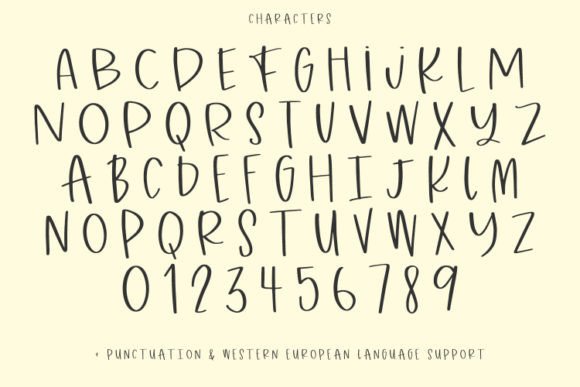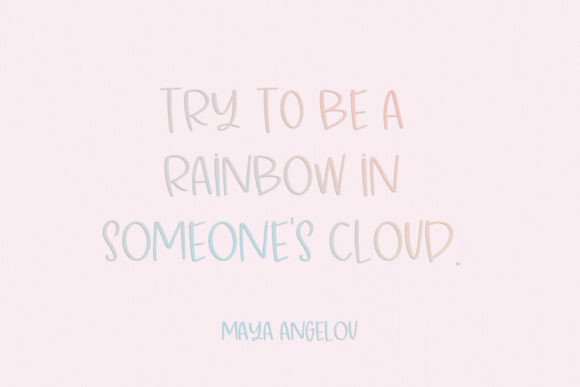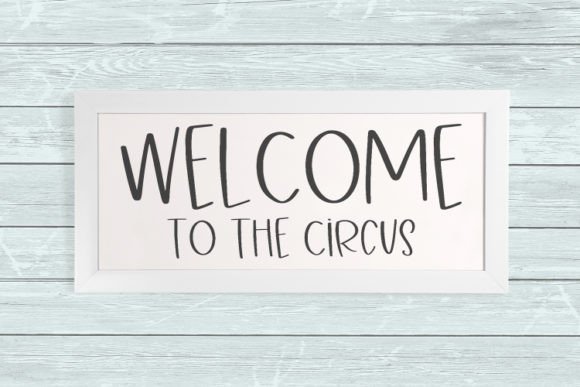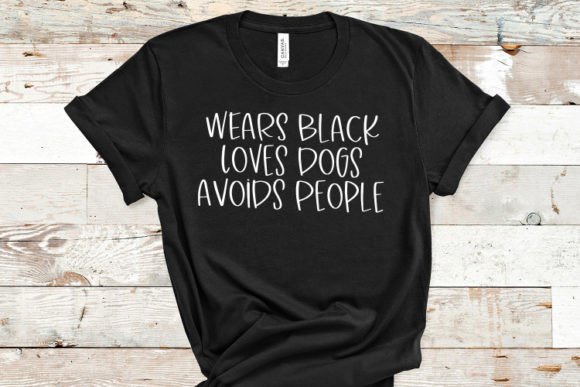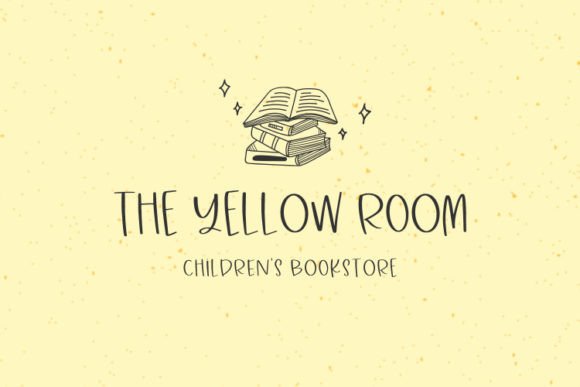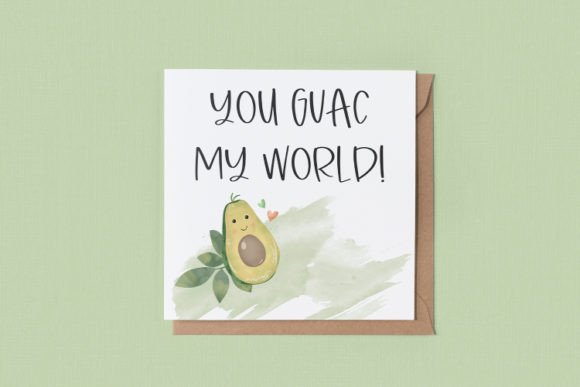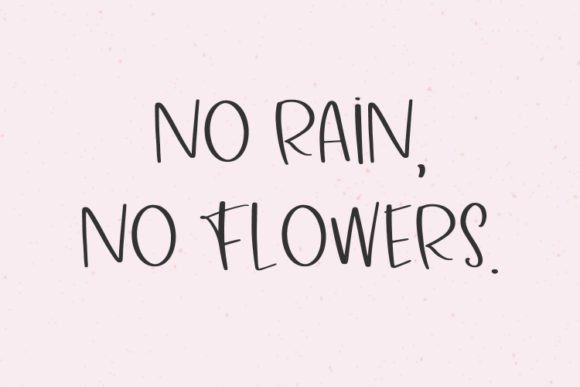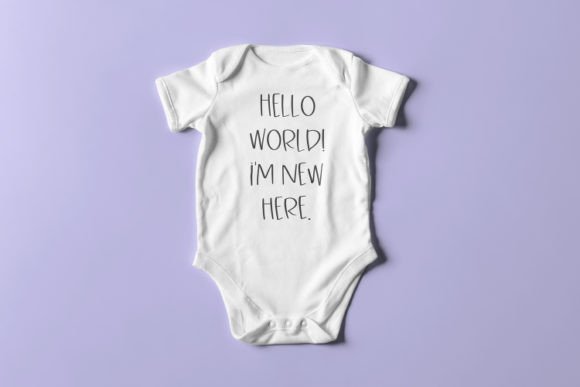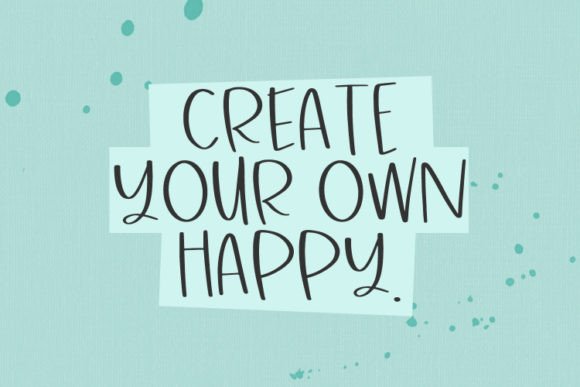
“Sunraiser” is introduced as a cute and fun mixed-case sans font, designed to bring a playful and lively vibe to your projects. This font, with its mix of uppercase and lowercase letters, adds a dynamic and versatile touch that can be confidently integrated into a variety of creative endeavors.
The cute and fun nature of “Sunraiser” makes it suitable for projects that require a touch of whimsy and charm. Whether used in branding, posters, invitations, or any design where a playful atmosphere is desired, this font can contribute to a positive and energetic aesthetic.
The mixed-case design of “Sunraiser” adds variety and visual interest to your text. It’s a font that can adapt to different styles and contexts, offering flexibility in conveying your message with a delightful flair.
In summary, “Sunraiser” is a cute and fun mixed-case sans font that promises to bring a delightful and dynamic element to your projects. Whether you’re exploring creative designs or engaging in hands-on crafts, this font adds a touch of playfulness that you’ll love incorporating into your creative endeavors.